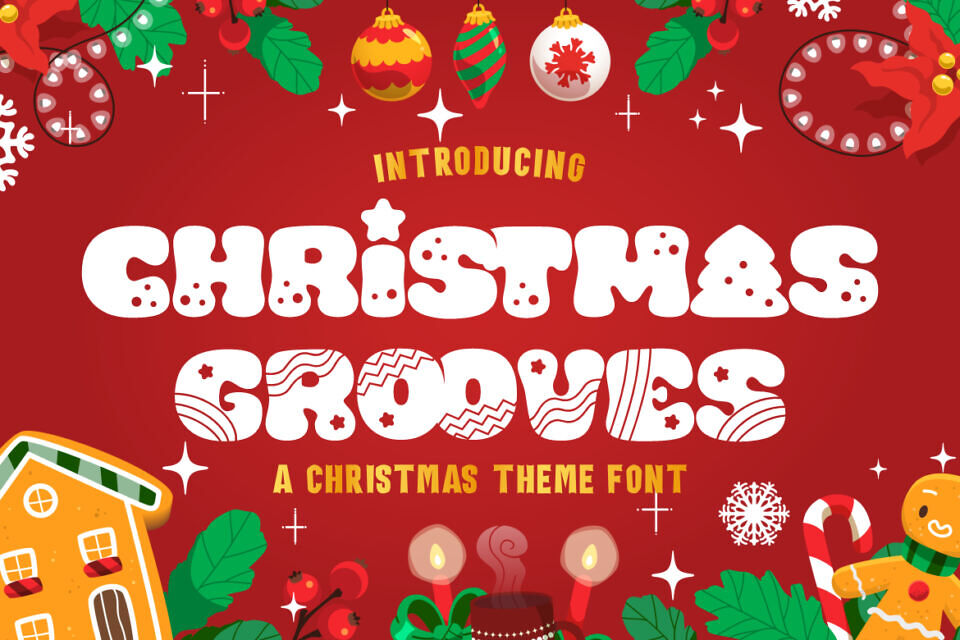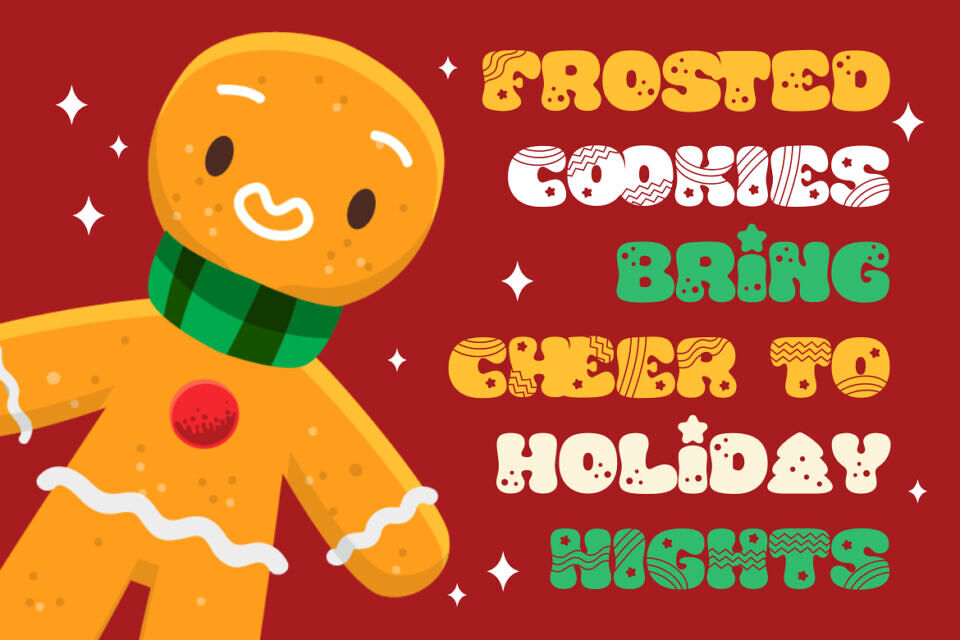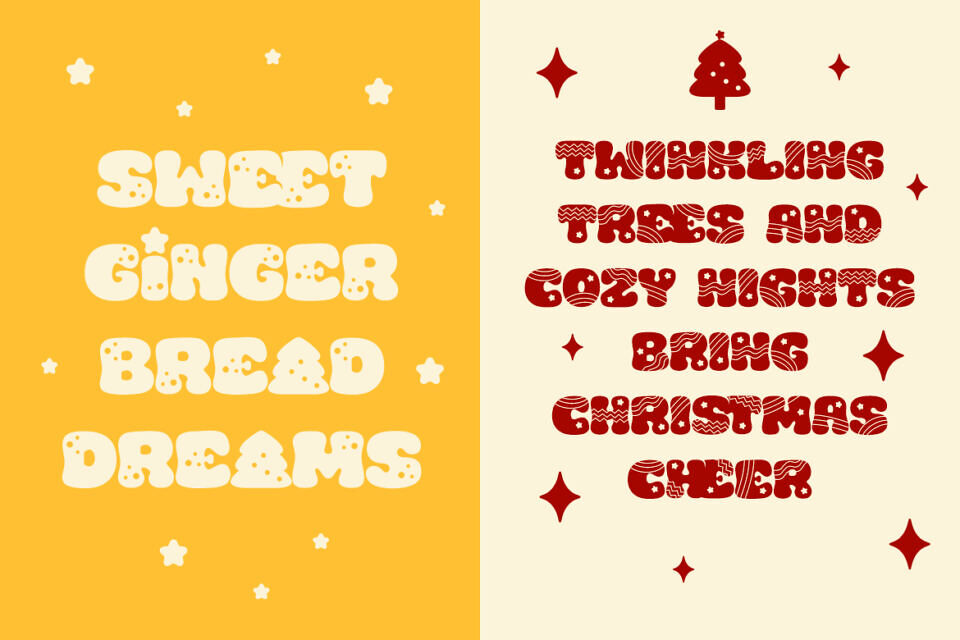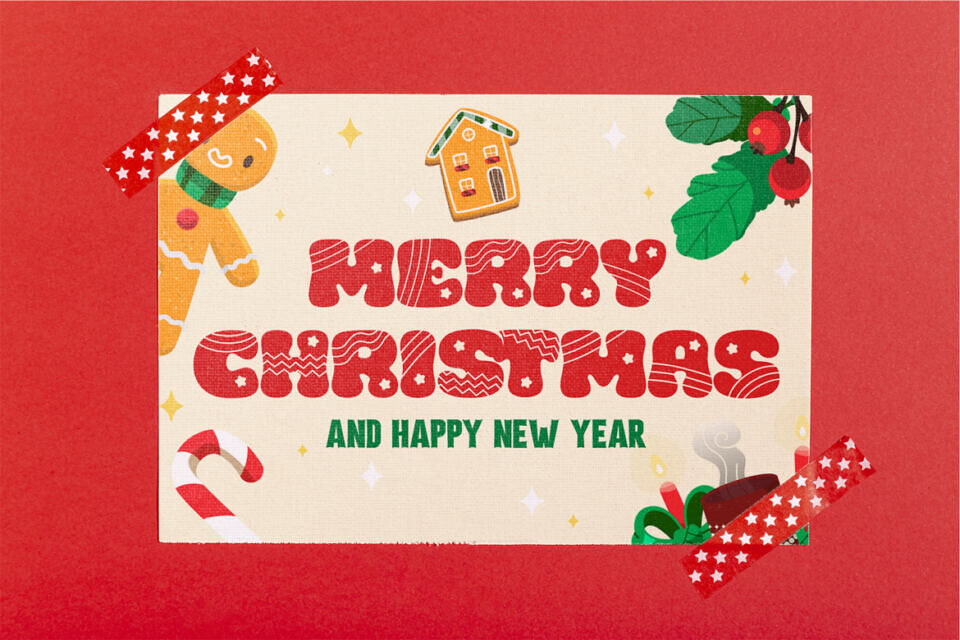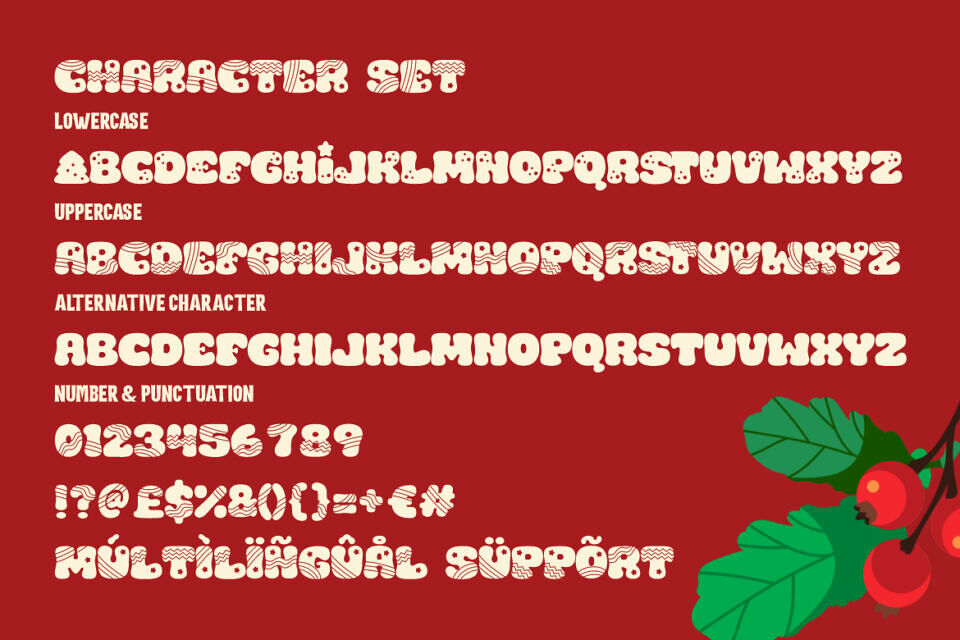
Bring your holiday spirit alive with Christmas Grooves, an enchanting and festive display font inspired by the whimsical charm of gingerbread cookies and joyful Christmas celebrations. Featuring playful, rounded letterforms with creatively festive patterns, Christmas Grooves perfectly captures the essence of holiday cheer and nostalgia.
The characters are intricately detailed, incorporating motifs such as stripes, dots, stars, and zig-zags, reflecting the delightful decorations found on freshly baked gingerbread treats. This font stands out beautifully on vibrant backgrounds, enhancing the cheerful and celebratory vibe of your designs.